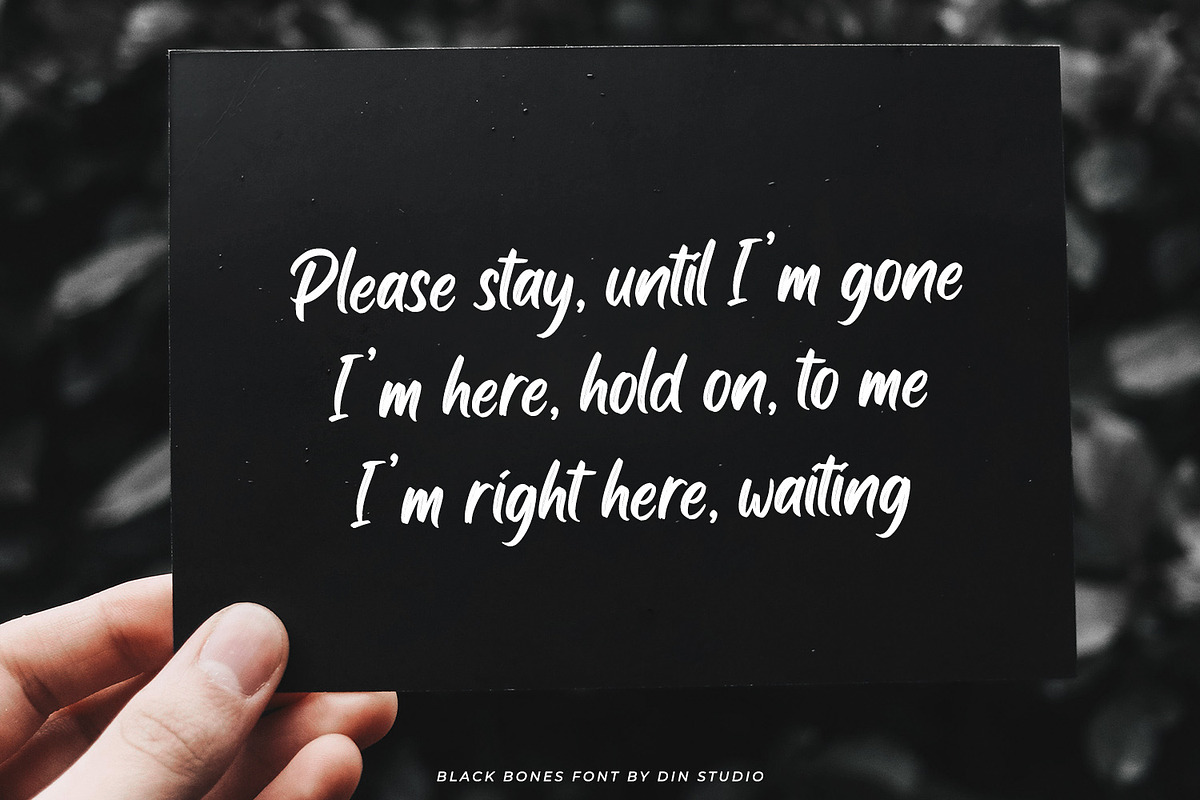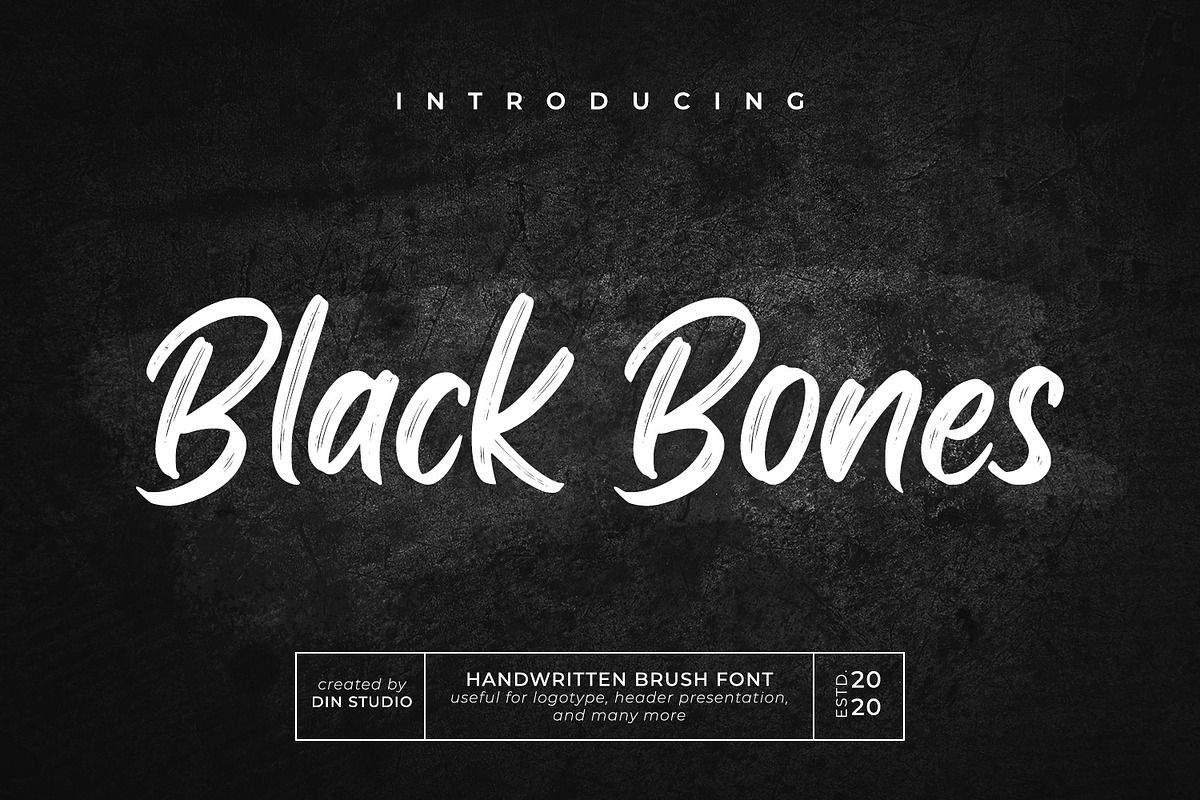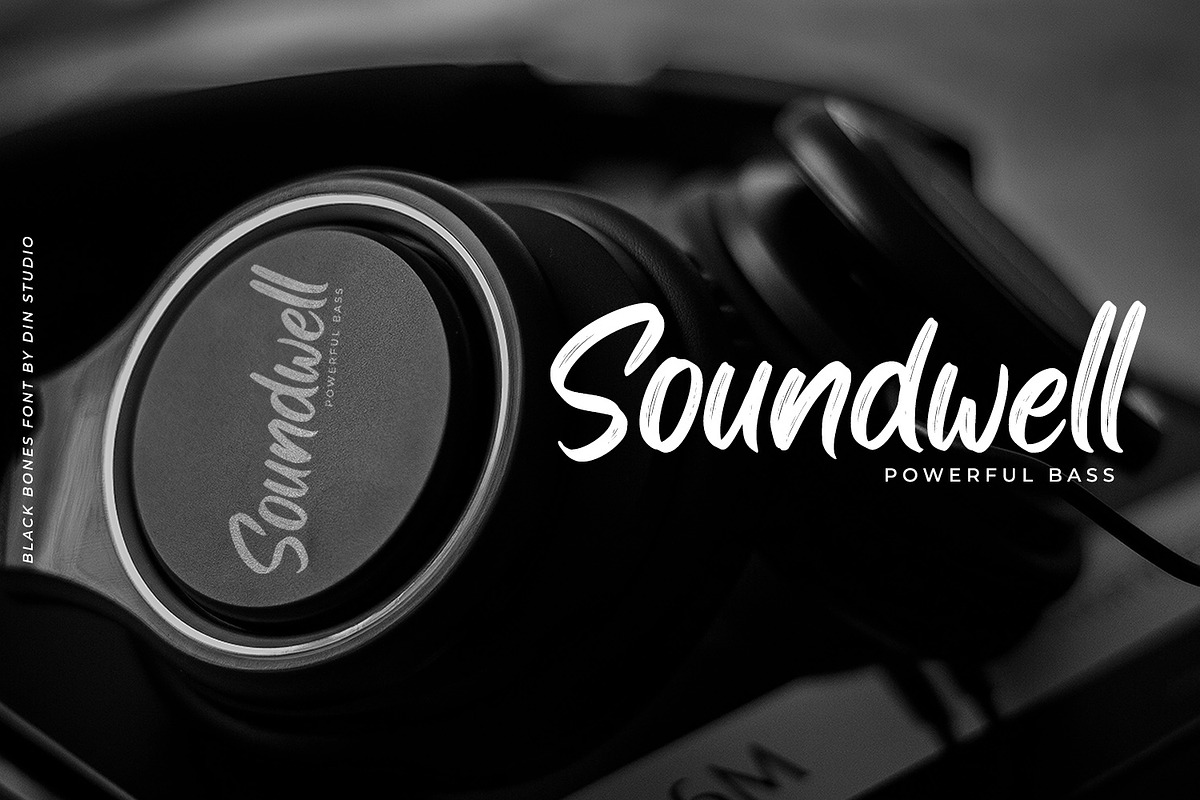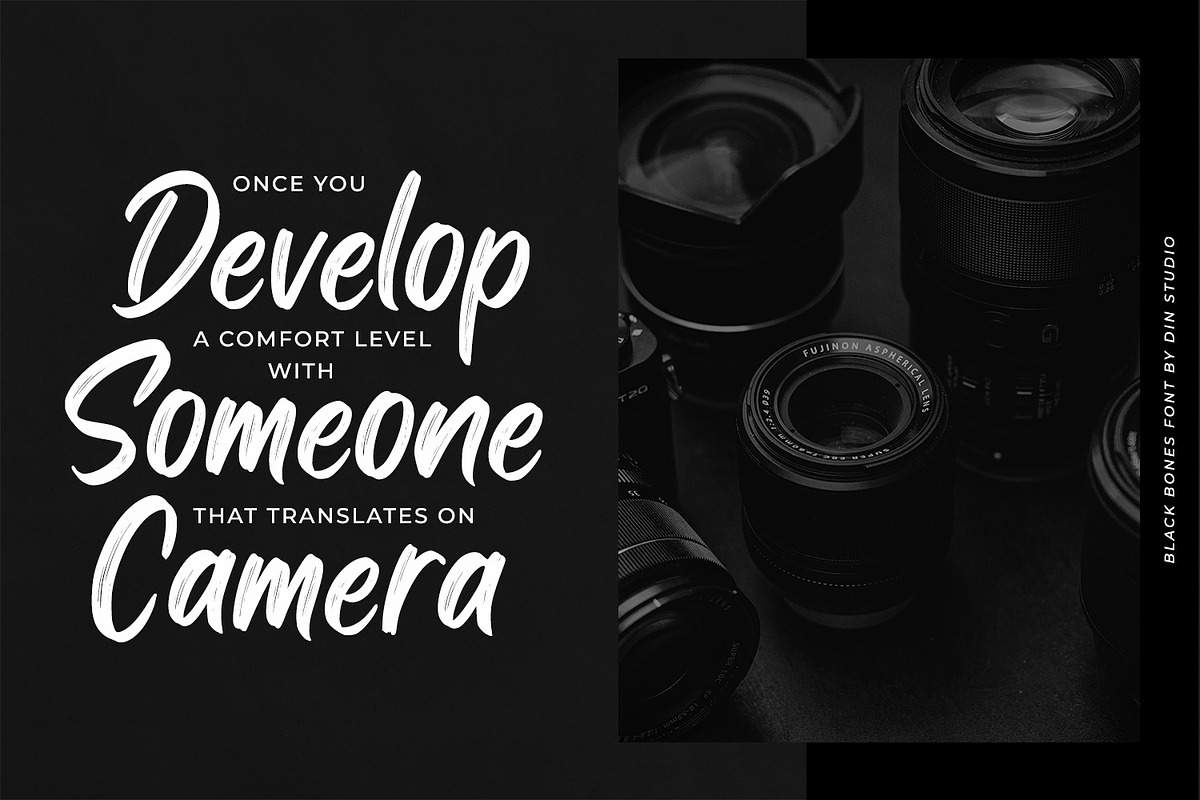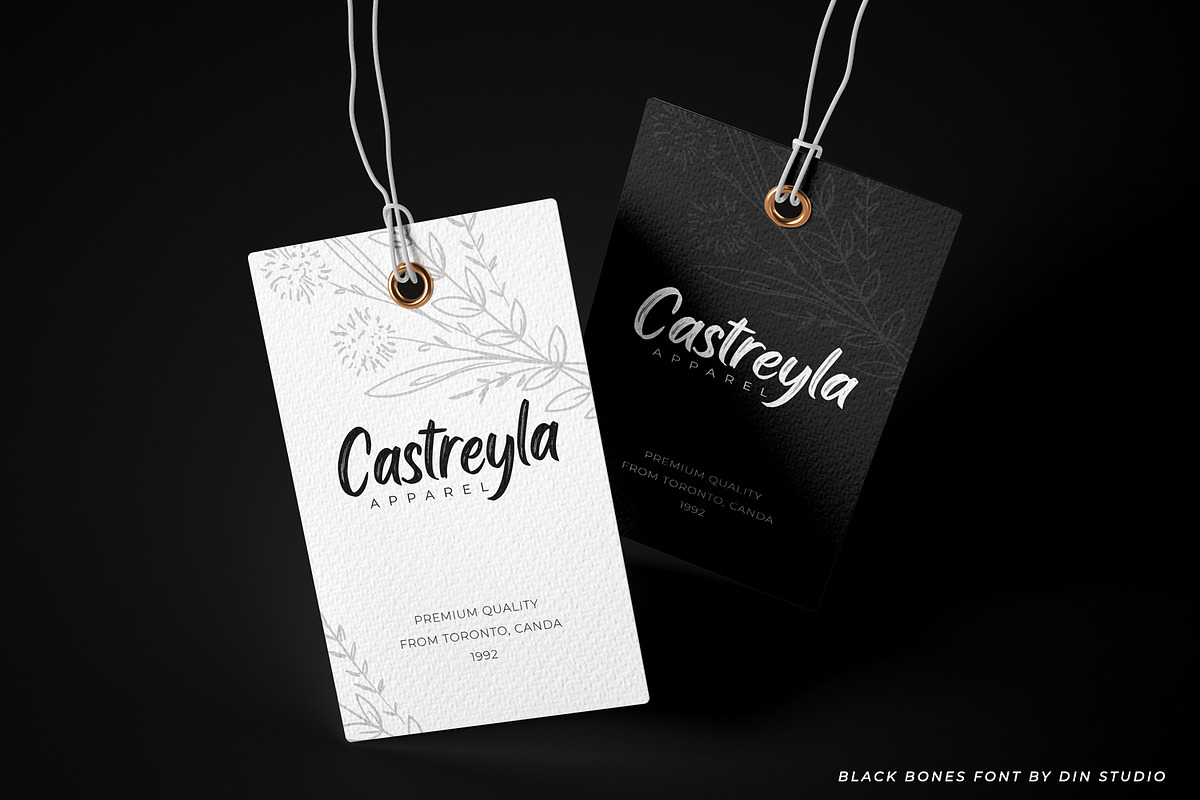
Black Bones-Classy Script
Black Bones is a classy script font. Combined with brush textured handwritten will make your design project more powerful. Made for any professional project branding. It is the best for for any design projects, such as posters, banners, logos, book covers, album covers, quotes, invitations, greeting cards, name cards, headings, printed products, merchandise, social media, etc. Find out more ways to use this font by taking a look at the font preview.